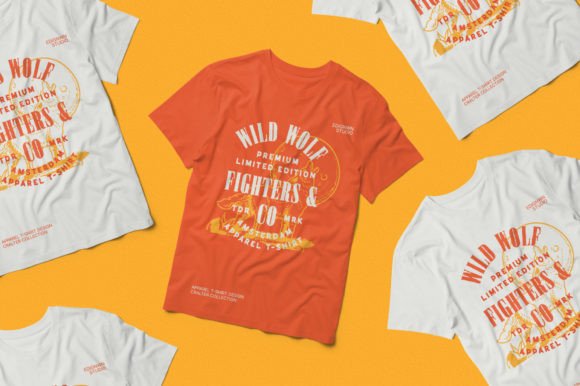
Cralter Font
The Cralter Font is inspired by authentic typefaces in old posters. These font collections contain serif and sans-serif fonts. The Cralter matches designs such as logos, posters, labels, badges, packaging, t-shirts, branding, quotes, and more custom designs.